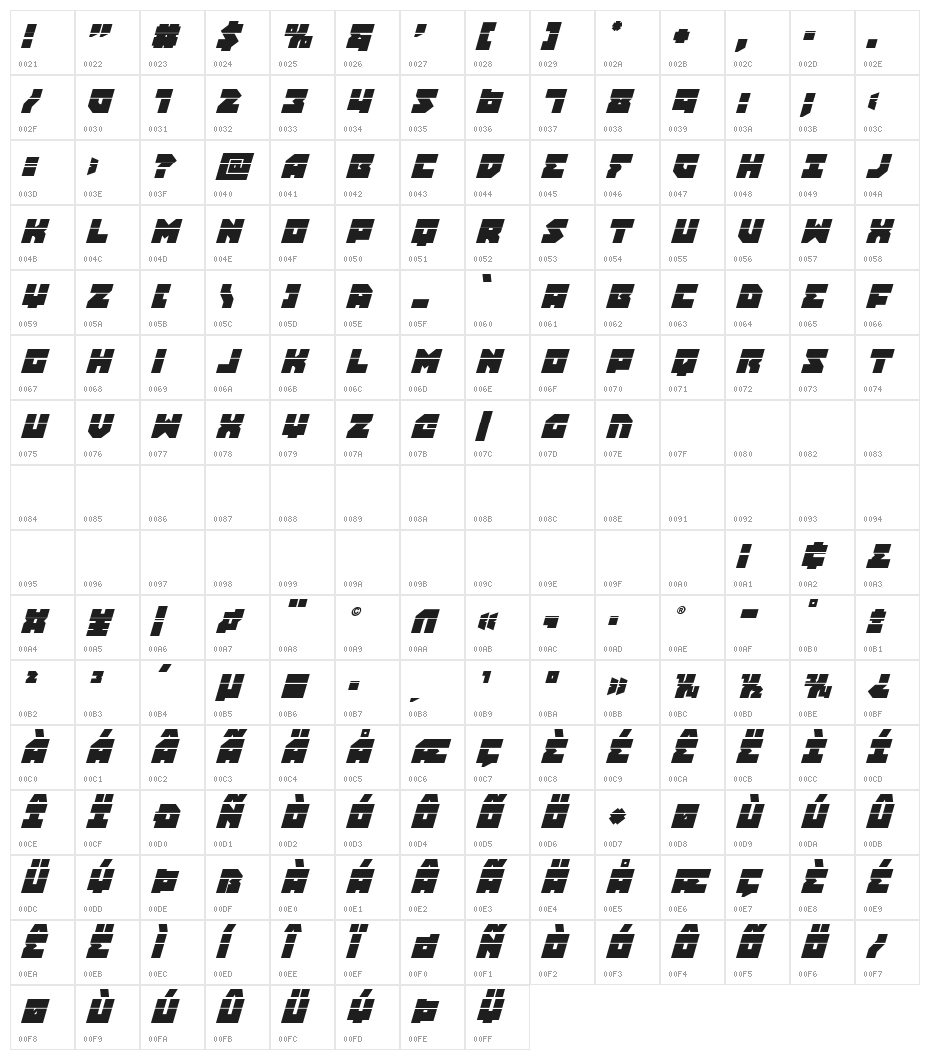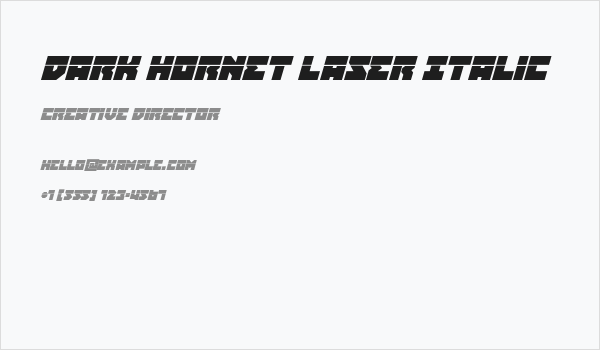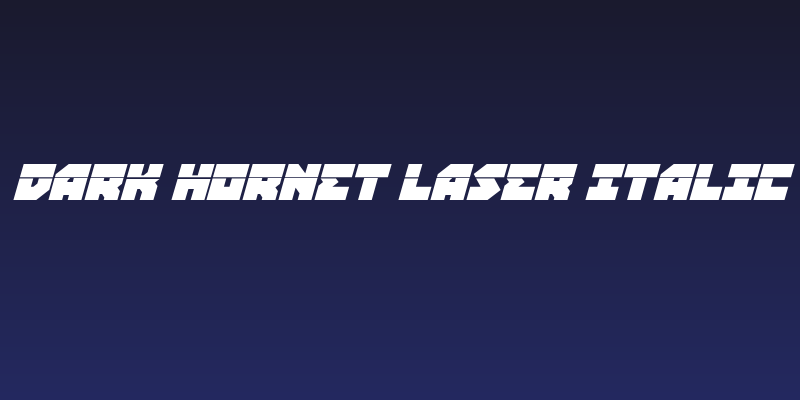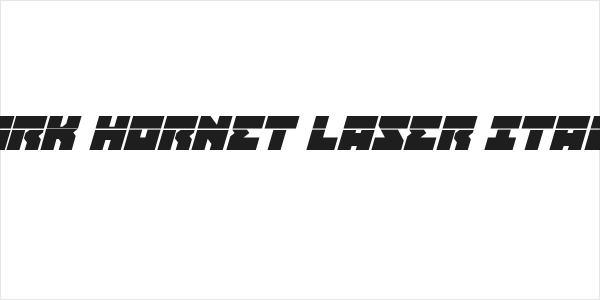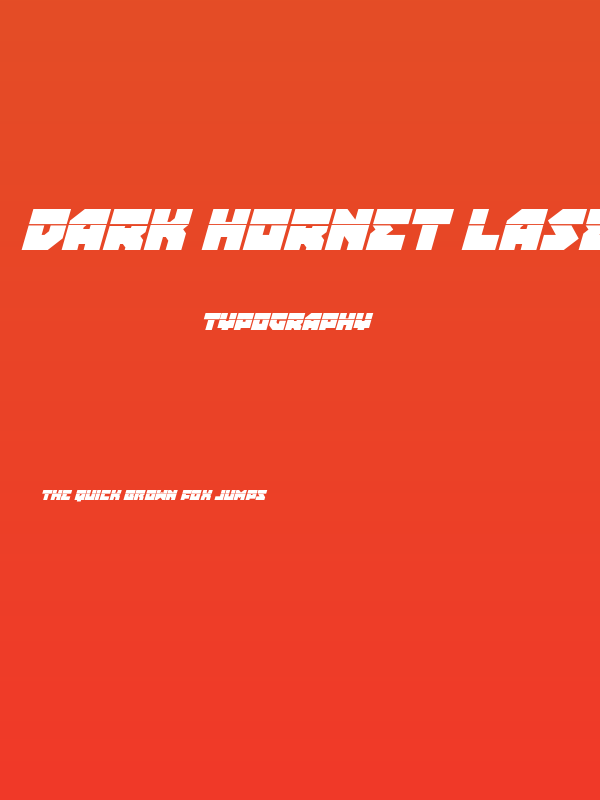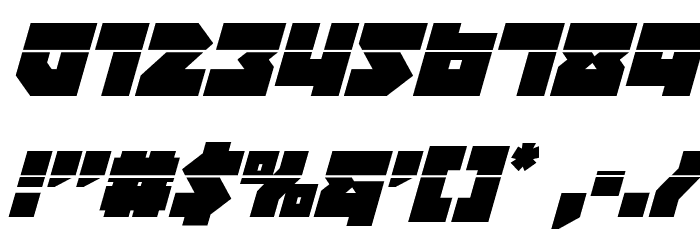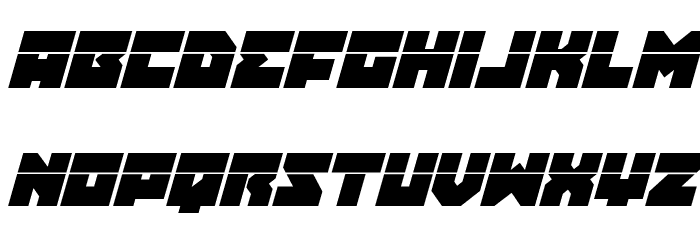
Dark Hornet Laser Italic Font
Dark Hornet Laser Italic Description
This font features a bold, angular design with a futuristic and aggressive aesthetic. The characters are sharply cut with a distinct geometric style, giving them a dynamic and energetic appearance. The italic slant adds a sense of motion and speed, enhancing its modern and edgy look. The uppercase and lowercase letters maintain a consistent style, with each character exhibiting unique cuts and angles that contribute to the overall cohesive design. The numbers and special characters follow the same angular theme, ensuring uniformity across all elements. This font is ideal for projects that require a strong, impactful visual statement.
| Proposed Projects | Ideal for sci-fi themed projects, video game titles, movie posters, and branding for tech companies. |